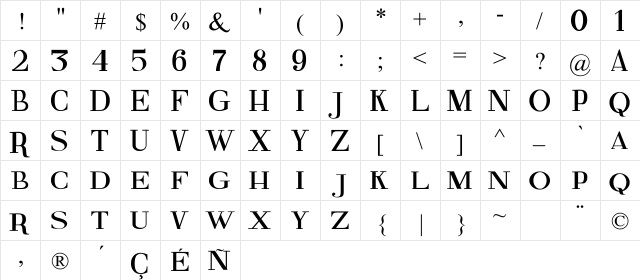
Fine Serif Regular
Design Context for Fine Serif Typeface
Fine Serif carries the refined structure of traditional serif typography, with bracketed terminals and considered proportions that communicate credibility and craft.
Pro Tip: Use Fine Serif for editorial body copy and considered headline work. Pair with a neutral sans for UI elements or captions to create a classic hierarchy.